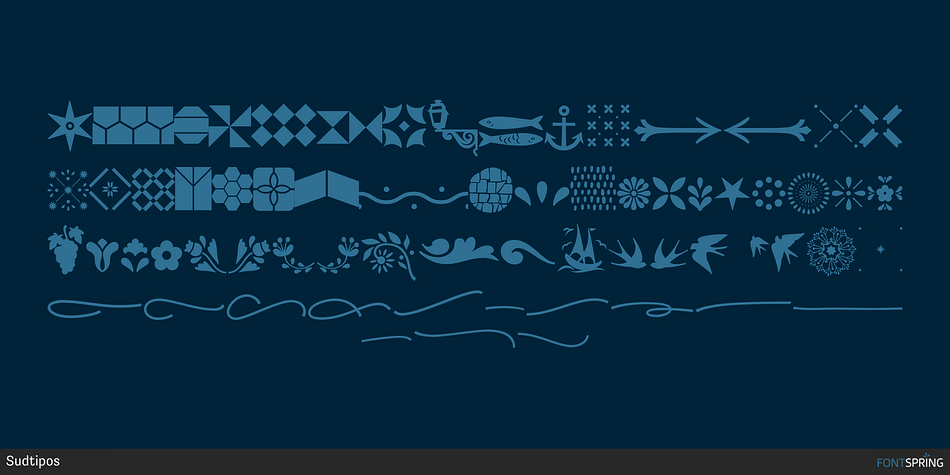
Portuguesa Icons
Designed by Natalia Elichirigoity, Portuguesa Set is a display sans, script and dingbat font family. This typeface has three styles and was published by Sudtipos.
Inspired by the graphic spirit of old packaging and store signs of Portugal, this font seeks to transmit the warm and sunny sound of Portuguese language in a visual way.
Portuguesa has 3 partners, designed to work nicely together and to complement one with each other.
Portuguesa Script, with friendly and rhythmic personality, great for titles and short text, Portuguesa Caps, with small caps and ligatures that perfectly match (and contrast) with the script version. And Portuguesa Icons, that recalls the legendary blue tiles. This last version was specially designed to mix signs up with delightful combinations for creating patterns, borders, stationary, tableware and all kind of commercial products and projects that needs a memorable strike. The possibilities are numberless.
As a mantra, Portuguesa is always in a positive mood, spreading the “Portuguese art of welcoming people”.
Seja Bem-Vindo!